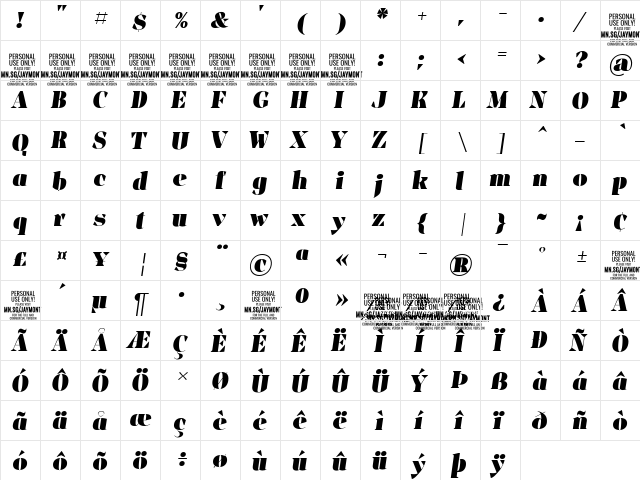
Jaymont PERSONAL Black Italic
Design Context for Jaymont PERSONAL Typeface
Jaymont PERSONAL takes a measured approach to typography — its balanced proportions and neutral character make it a reliable workhorse for both digital and print work. The dynamic lean of this cut emphasises speed and emphasis in any layout.
Pro Tip: Use Jaymont PERSONAL for emphasis, pull quotes, and subheadings where its slanted energy can add rhythm to the layout.